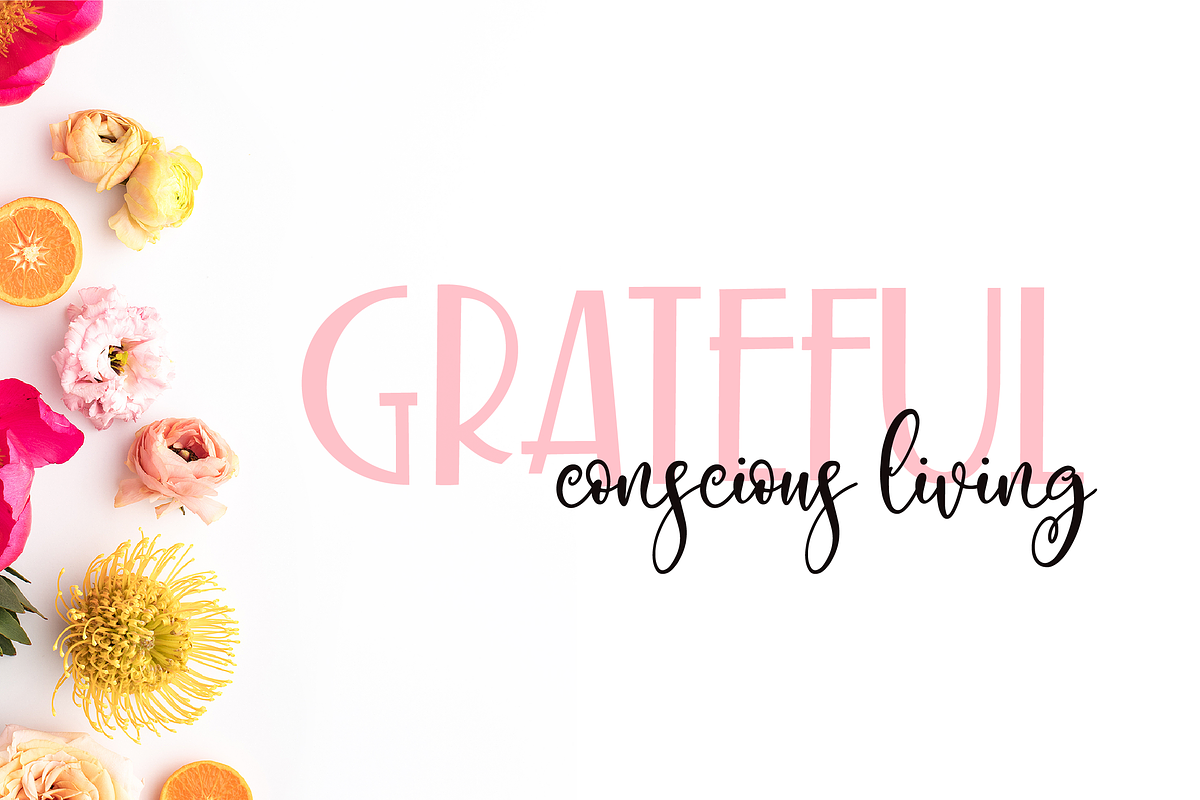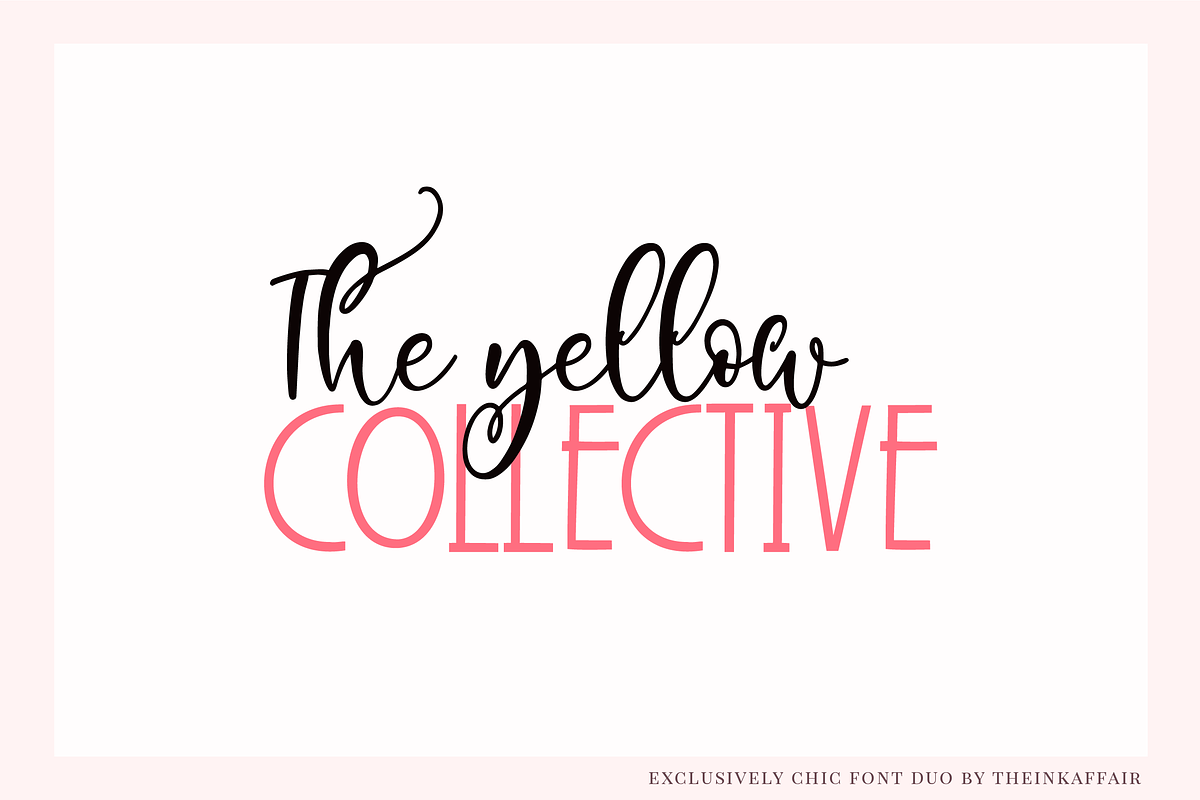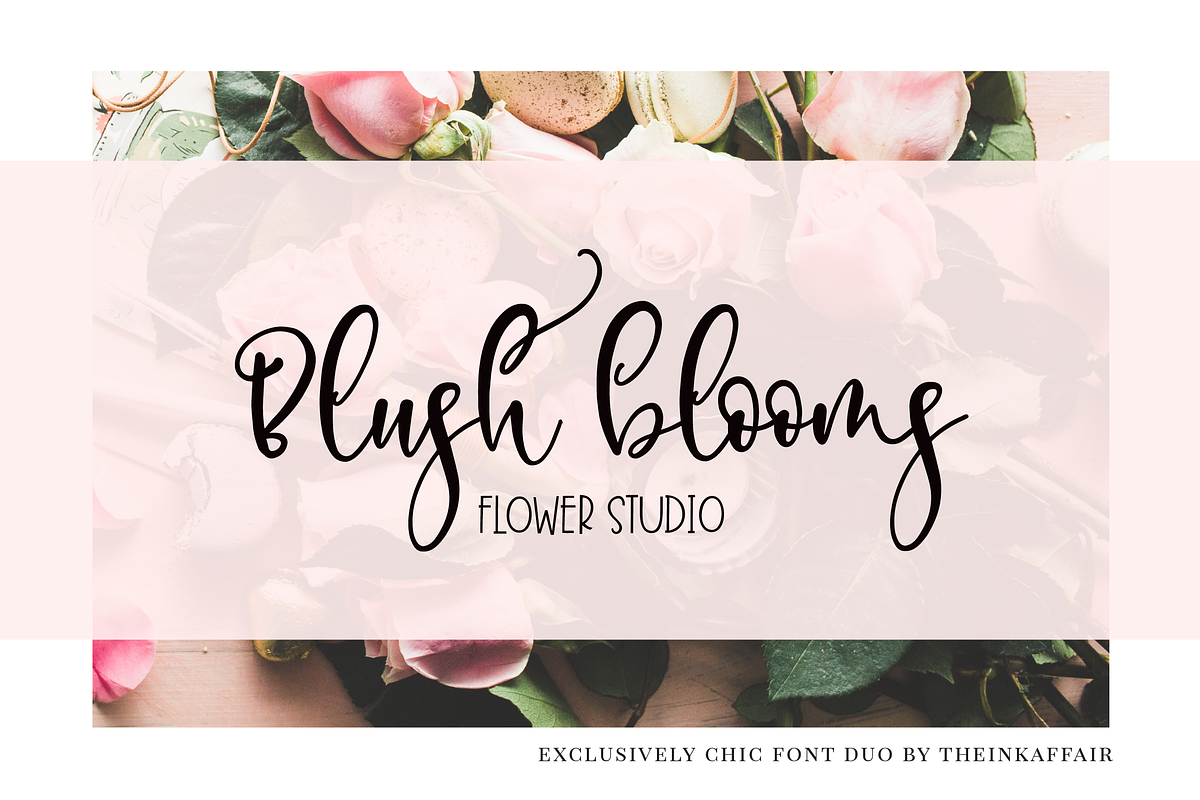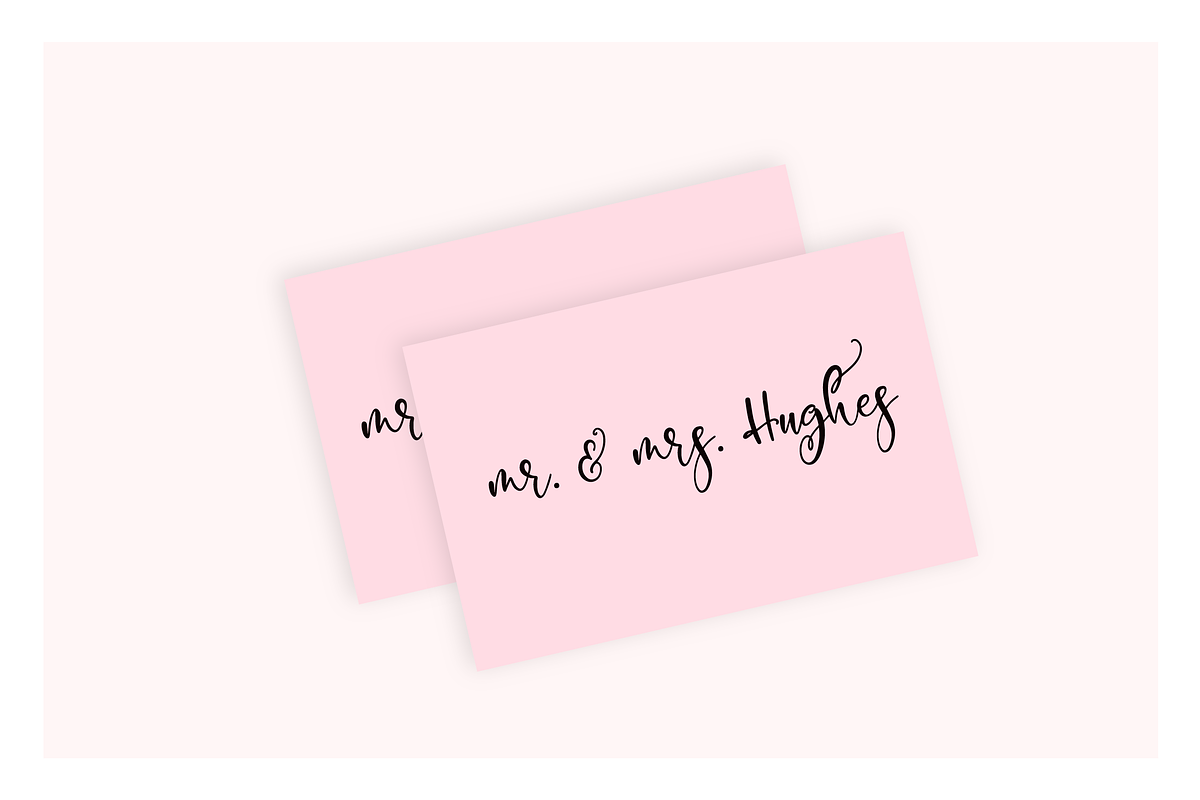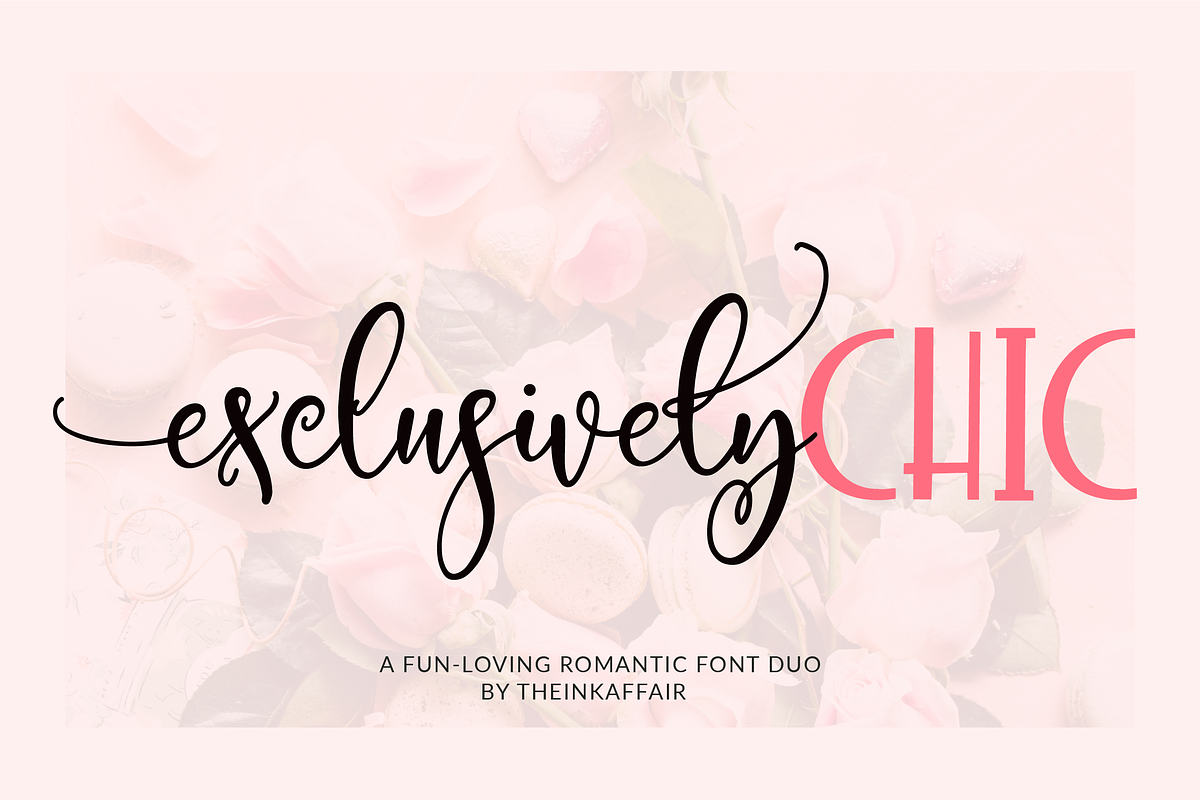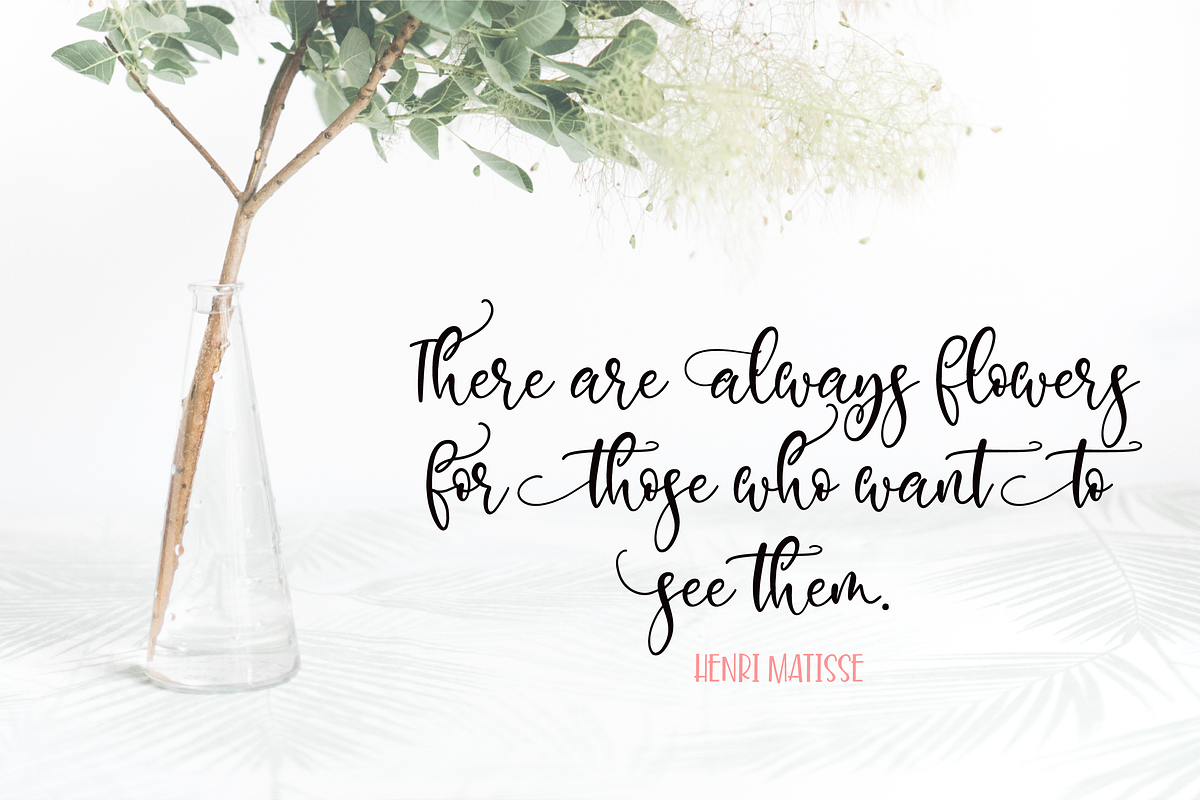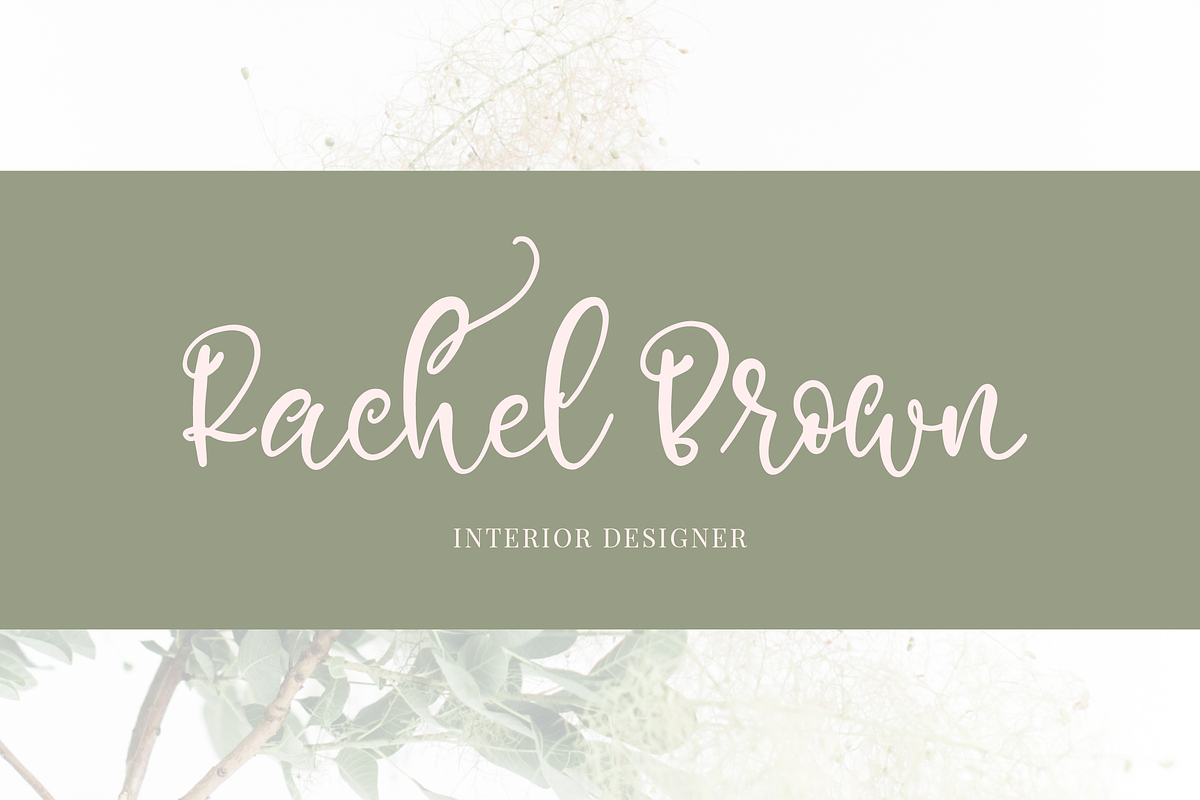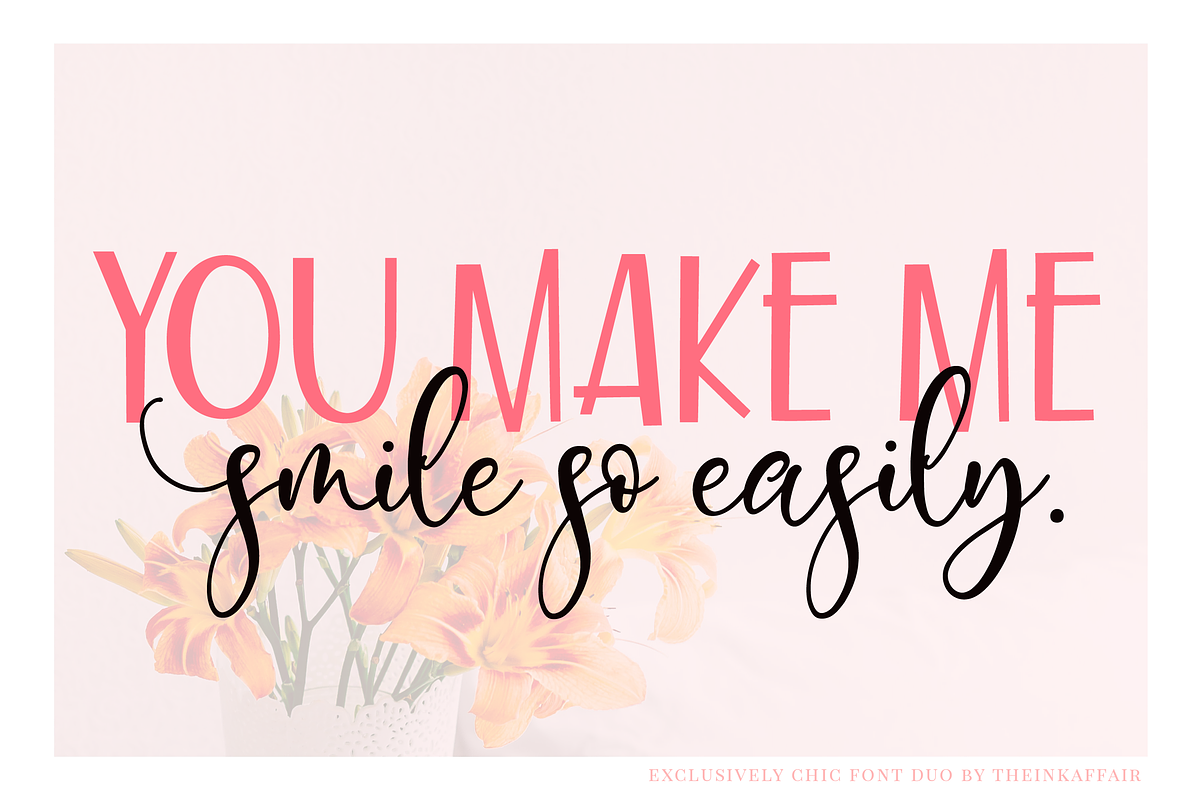
Exclusively Chic Font Duo
Exclusively Chic is a fancy font duo that comes with a wonderfully romantic script font paired with a playful sans serif.
A bundle of prettiness and all things nice, Exclusively Chic script font is perfect for logos, magazines, social media posts, invites, blogs, etc. It also comes with a whole set of alternates to make your designs prettier and add that oomph.